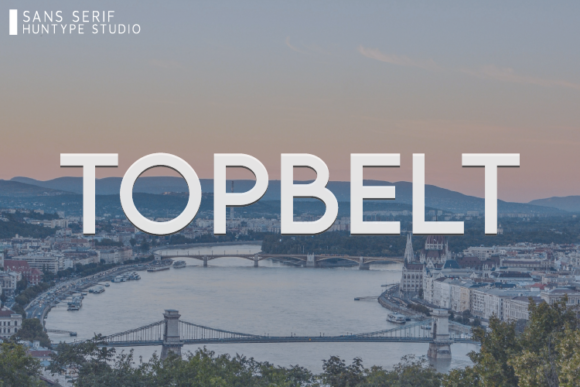
In a world awash with visual cacophony, your designs yearn for a font that whispers elegance, simplicity, and sophistication, all rolled into one. Meet Topbelt, the sans serif font that transforms your creative visions into captivating masterpieces.
Topbelt, a brainchild of Huntype, isn't just another font; it's an artistic odyssey that complements your designs with its clean lines, subtle curves, and a dash of understated panache. Whether you're a seasoned designer or a creative novice, Topbelt becomes your trusty companion, elevating your projects with effortless grace.
Unshackle your imagination and let Topbelt guide you through a realm of boundless possibilities. Its versatility knows no bounds; be it a fashion magazine cover, an art exhibition poster, or a minimalist website, Topbelt seamlessly blends with your vision, adding a touch of sophistication that speaks volumes.
Enter the world of Topbelt and discover a font that mirrors your innate elegance. It's a font that doesn't shout; it enchants. It doesn't demand attention; it commands it. Let Topbelt become your signature style, the essence of your creative identity.